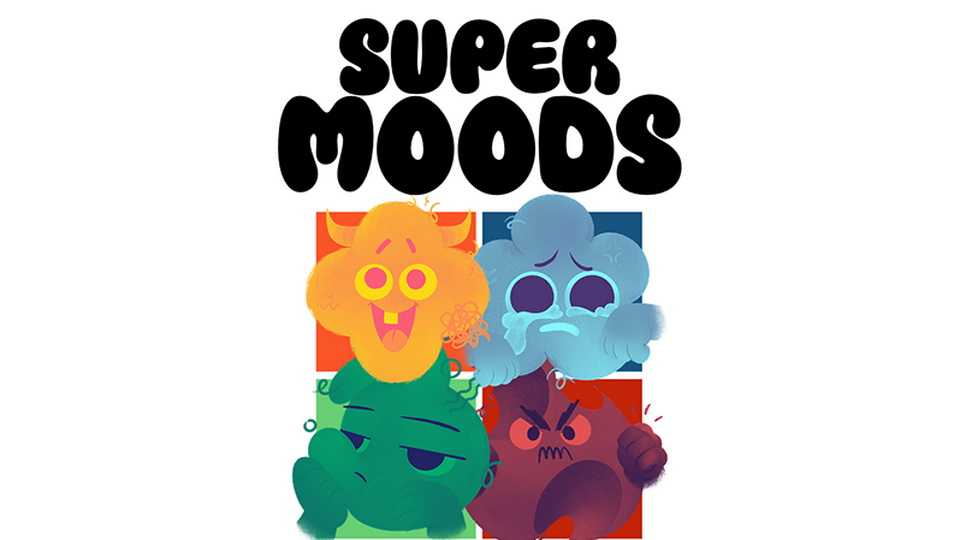
Download Super Moods font, a cheerful, handcrafted typeface filled with fun and positivity. Each letter is round and full of life, with smooth, curvy shapes.